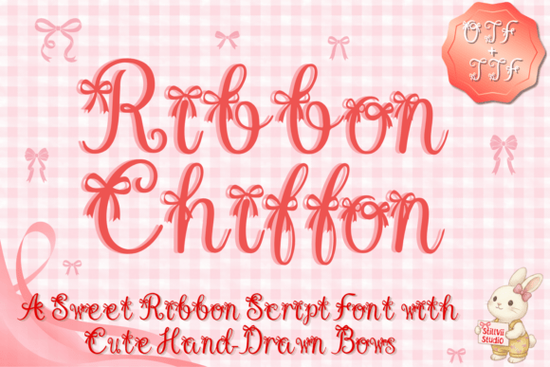
If you are designing personalized gifts or setting up a print-on-demand shop, finding the right typography can make or break your project. You need a script that feels personal without losing legibility. For anyone looking to add a soft, feminine touch to their work, the Ribbon Chiffon Font stands out immediately. This typeface combines traditional calligraphy with whimsical ribbon decorations on every single character. It sits perfectly within the current aesthetic trends that favor handcrafted details over rigid digital designs.
What Makes This Script Different?
Most cursive fonts attempt to mimic ink flowing across paper, but this one goes a step further by simulating physical accessories. Each letter features delicate hand-drawn ribbon details that give the impression of a bow tied around the glyph. This creates a unique texture that reads clearly even at smaller sizes. While you might compare it to other heavy display options found online, such as those in our earthy font selection, this particular design leans more toward playfulness than ruggedness. The lines remain thin enough to prevent bleeding during printing, yet bold enough to stand out on dark backgrounds.
The coquette aesthetic has gained significant popularity recently, driven largely by social media trends emphasizing lace, pastel colors, and vintage-inspired elements. Designers often struggle to find fonts that capture that specific "girly" energy without appearing childish. This tool solves that by balancing maturity with sweetness. Unlike a purely decorative display font, it remains usable for sentences and longer copy if your design allows for generous spacing.
Best Uses for Sublimation and Machine Crafts
Many creators ask if a font is compatible with their vinyl cutter before downloading. This package is fully optimized for Cricut and Silhouette machines, meaning you will likely not face complications with cutting mats or intricate swashes breaking apart. Because the ribbon attachments are connected directly to the letters rather than floating independently, layering errors are minimized. This makes it an ideal choice for creating stickers, laptop decals, or wall art where precision matters.
For sublimation projects on mugs, tumblers, or tote bags, the clean strokes transfer beautifully onto curved surfaces. The high contrast between the white background and the ribbon highlights ensures the image pops when heat-pressed. Sellers often pair these designs with floral watercolors or simple patterns to highlight the typography as the focal point. If you need something equally readable but slightly different for a specific color scheme, consider looking at display fonts with safari themes for a contrasting earth-tone palette later.
Compatibility with Digital Planners and Branding
Beyond physical goods, this handwriting typeface serves digital creators well. Bloggers selling resources like printable journals often seek branding that feels inviting. Using it for headers or emphasis text helps guide the reader’s eye through content without overwhelming the layout. The variation in thickness adds visual rhythm that plain sans-serifs lack. When working with Canva or Photoshop, the open-type format ensures you can adjust kerning manually to suit your composition.
Sometimes, users want to mix different scripts for impact. A great way to create harmony is combining this bow style with a solid serif or a bold headline font. This prevents the design from feeling too busy. If you enjoy this level of detail, exploring alternative cute options can provide backups when a project requires a slightly softer curve. Alternatively, fonts with playful quirks offer another avenue for generating engaging social media graphics. These choices allow flexibility depending on whether your project targets a younger demographic or professional audience.